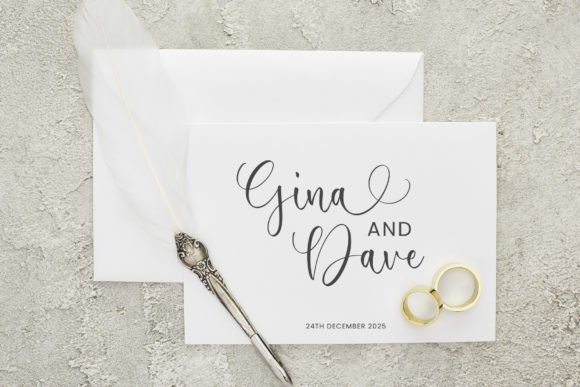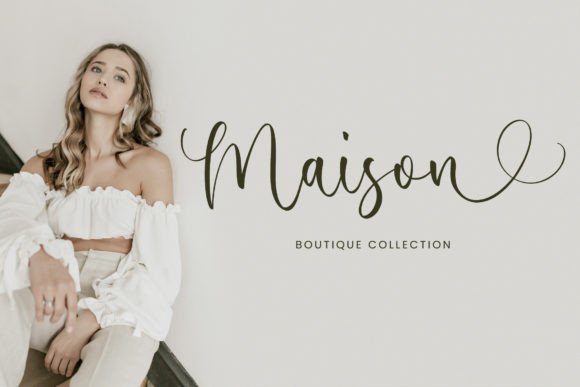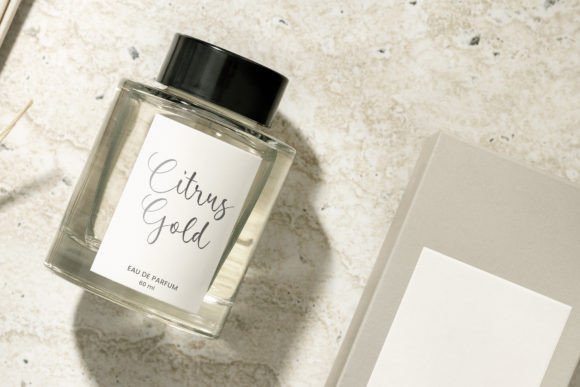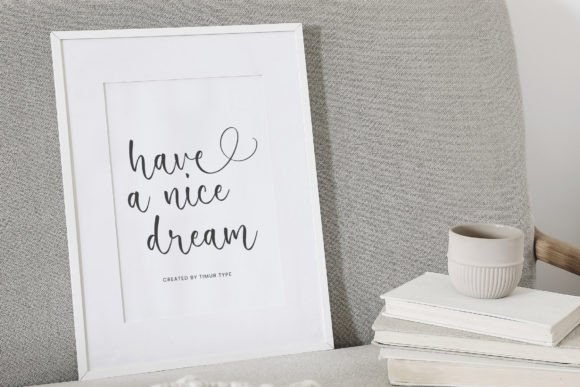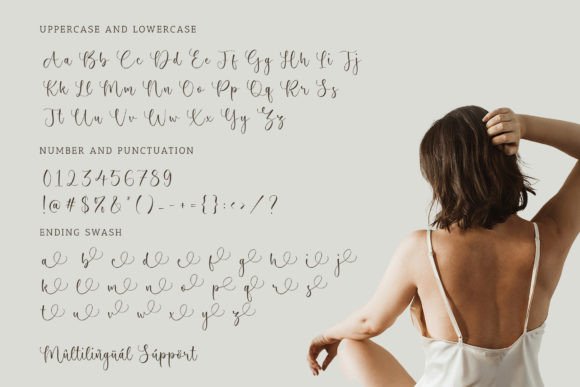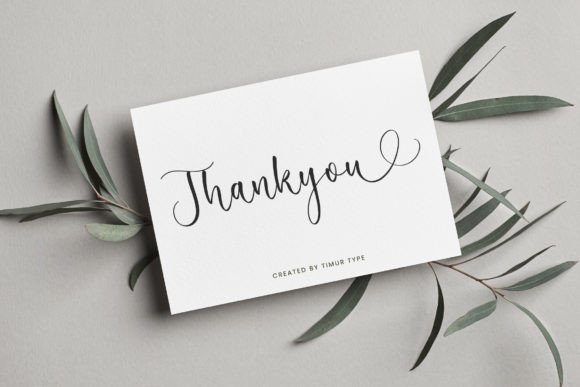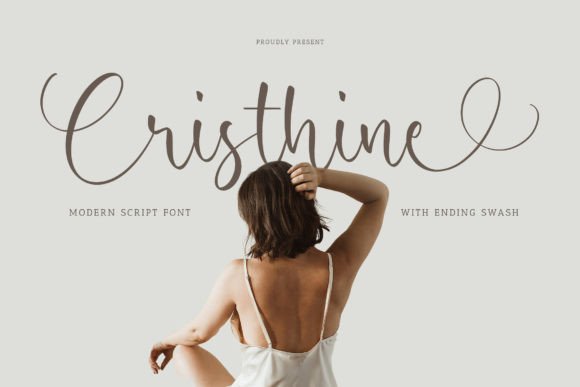
Cristhine Font: Elevate Your Designs with Elegance and Sophistication
Are you looking for a font that exudes luxury, sophistication, and creativity? Look no further than Cristhine Font, a stunning handwritten font that is sure to become your new favorite. With its perfect blend of classic calligraphic influences and modern flair, Cristhine is the ideal choice for designers and crafters seeking to elevate their projects to new heights.
The Story Behind Cristhine Font
Cristhine Font is a meticulously crafted font that boasts an exquisite handwritten style. Its creator has masterfully designed it to evoke a sense of elegance and refinement, making it perfect for a wide range of applications, from high-end branding and advertising to crafting and DIY projects.
What Makes Cristhine Font So Special?
Cristhine Font stands out from the crowd due to its unique combination of classic and contemporary elements. Here are just a few reasons why designers and crafters are falling in love with this beautiful font:
- Classy Calligraphic Influences: Cristhine Font draws inspiration from traditional calligraphy, giving it a timeless and sophisticated feel.
- Contemporary and Fresh: Despite its classic roots, Cristhine Font has a modern twist that makes it feel fresh and current.
- Handwritten with Love: The font’s handwritten nature gives it a personal and human touch, making it perfect for projects that require a touch of warmth and personality.
Uses for Cristhine Font
Cristhine Font is incredibly versatile, making it suitable for a wide range of projects and applications. Here are some ideas to get you started:
- Branding and Logo Design: Use Cristhine Font to create a luxurious and sophisticated brand identity that sets your business apart.
- Stationery and Invitations: Add a touch of elegance to your stationery, invitations, and greeting cards with Cristhine Font.
- Crafting and DIY Projects: Use Cristhine Font to add a personal touch to your crafting and DIY projects, such as handmade cards, scrapbooking, and home decor.
- Advertising and Marketing: Cristhine Font is perfect for creating eye-catching advertisements, social media graphics, and marketing materials that demand attention.
Tips for Using Cristhine Font
To get the most out of Cristhine Font, here are a few tips to keep in mind:
- Pair it with Neutrals: Cristhine Font looks stunning when paired with neutral colors like black, white, and gray. Try using it with a bold color to create a striking contrast.
- Experiment with Sizes: Cristhine Font looks great in a variety of sizes, from large headings to smaller body text. Experiment with different sizes to find the perfect fit for your project.
- Add a Personal Touch: Cristhine Font is perfect for adding a personal touch to your projects. Try using it with a photo or illustration to create a unique and eye-catching design.
Cristhine Font is a truly exquisite handwritten font that is sure to become a favorite among designers and crafters. With its perfect blend of classic calligraphic influences and modern flair, it’s the ideal choice for projects that require a touch of elegance and sophistication. Whether you’re looking to create a luxurious brand identity, add a personal touch to your crafting projects, or simply elevate your designs to new heights, Cristhine Font is the perfect choice.